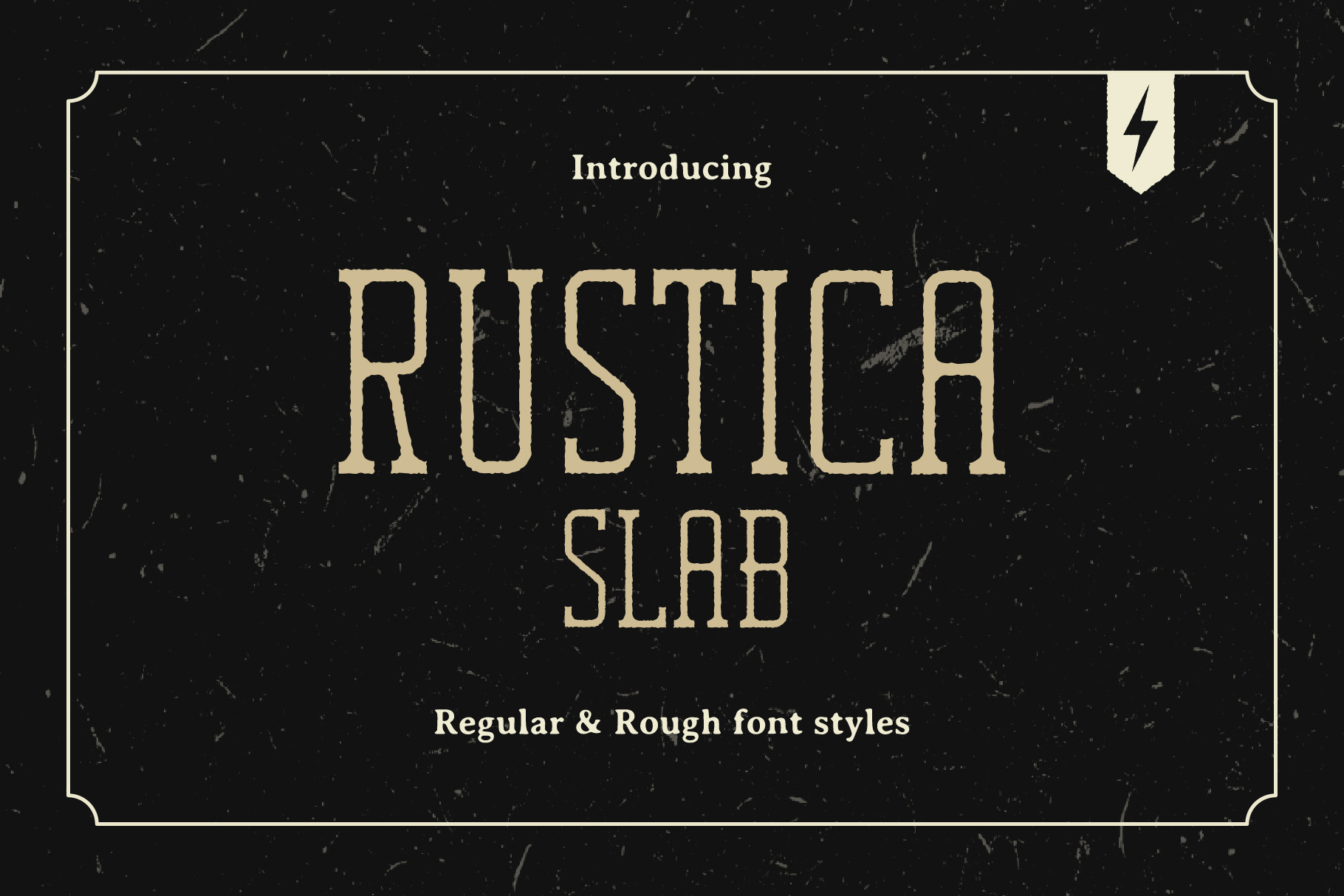
Rustica Slab Font
Introducing Rustica Slab Font!
Rustica Slab has a vintage theme, including two styles (regular & rough), and can be used for headlines, label design, t-shirts, logo design, package design, and much more.
- Uppercase, Numbers and Punctuation Included
- Regular and Rough Styles